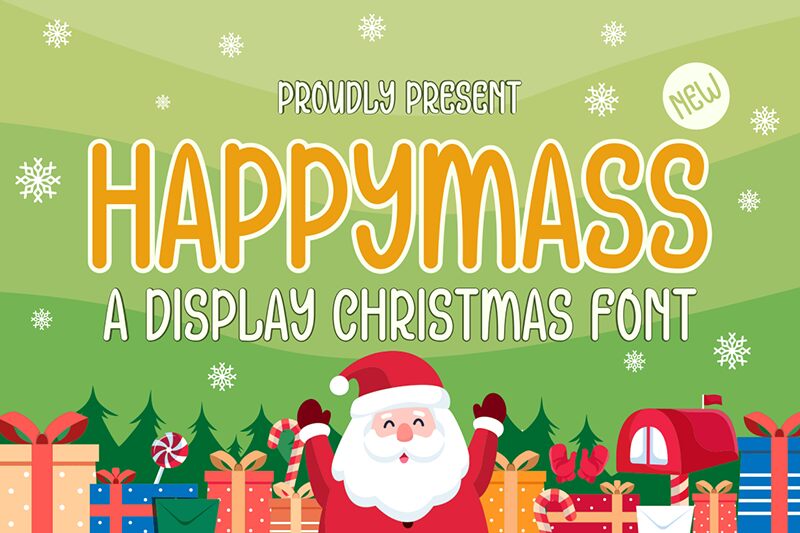
Happymass font family by Gilang Ternadho is a free handwritten font with carefree, rounded letters that come in 2 font styles. It gives a cheerful and festive vibe in a modern way yet still looking decorative in many ways. Use readily to give a vibrant and inviting feel within any textual content.
Be it online or in print, Happymass can be used in case studies of all kinds including for titles, packaging, logos, children’s books, posters, social media contents, websites, and branding. It can be a stylish addition to packaging, events, e-cards, product labels, and apps.